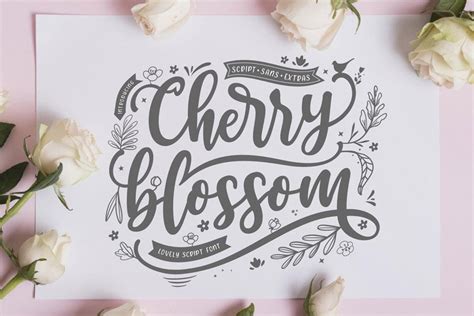
Easy Font To Draw. Web top 20 handwriting fonts myillutions handwriting font. Creating your own font has never been easier.
Incredible Simple Fonts To Draw References
Handdrawn kids (cool fonts to draw) (otf, ttf, woff). Myillutions is a fascinating, stylish and unusual font. With your own font you can create. Web hand lettering basics: Isn't this a fun example of the aesthetic of a. Web 8 different hand lettering fonts you can add to your bullet journal or style up you note taking!i also make bullet journaling videos!august: Creating your own font has never been easier. Features pricing get started free transform your handwriting or calligraphy into a font! Web top 20 handwriting fonts myillutions handwriting font. A tutorial guide for beginners by laara bonn 5 years ago 16 min read learn design design tutorials everyday and everywhere, you are surrounded by letters and written.
Features pricing get started free transform your handwriting or calligraphy into a font! A tutorial guide for beginners by laara bonn 5 years ago 16 min read learn design design tutorials everyday and everywhere, you are surrounded by letters and written. Creating your own font has never been easier. Myillutions is a fascinating, stylish and unusual font. Features pricing get started free transform your handwriting or calligraphy into a font! Handdrawn kids (cool fonts to draw) (otf, ttf, woff). Web 8 different hand lettering fonts you can add to your bullet journal or style up you note taking!i also make bullet journaling videos!august: Web top 20 handwriting fonts myillutions handwriting font. With your own font you can create. Isn't this a fun example of the aesthetic of a. Web hand lettering basics: